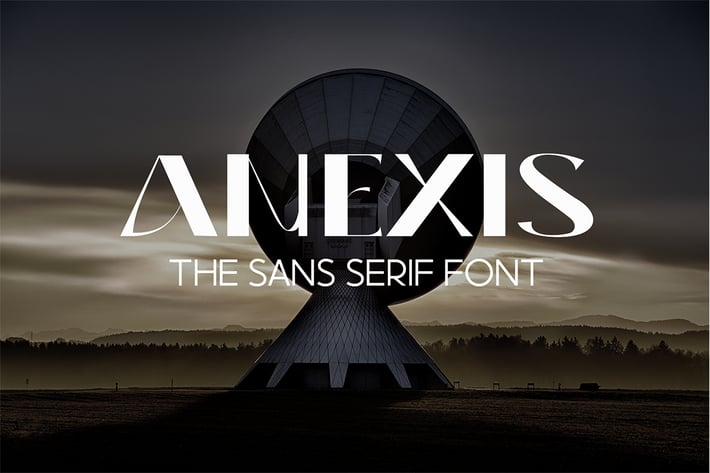
Anexis - Sans Serif Font
Introducing Anexis, a simple and classic sans serif font. Its unique and lovely feel.
So perfect for you who needs a typeface for logo designs, magazine, social media, brochure, and many more.